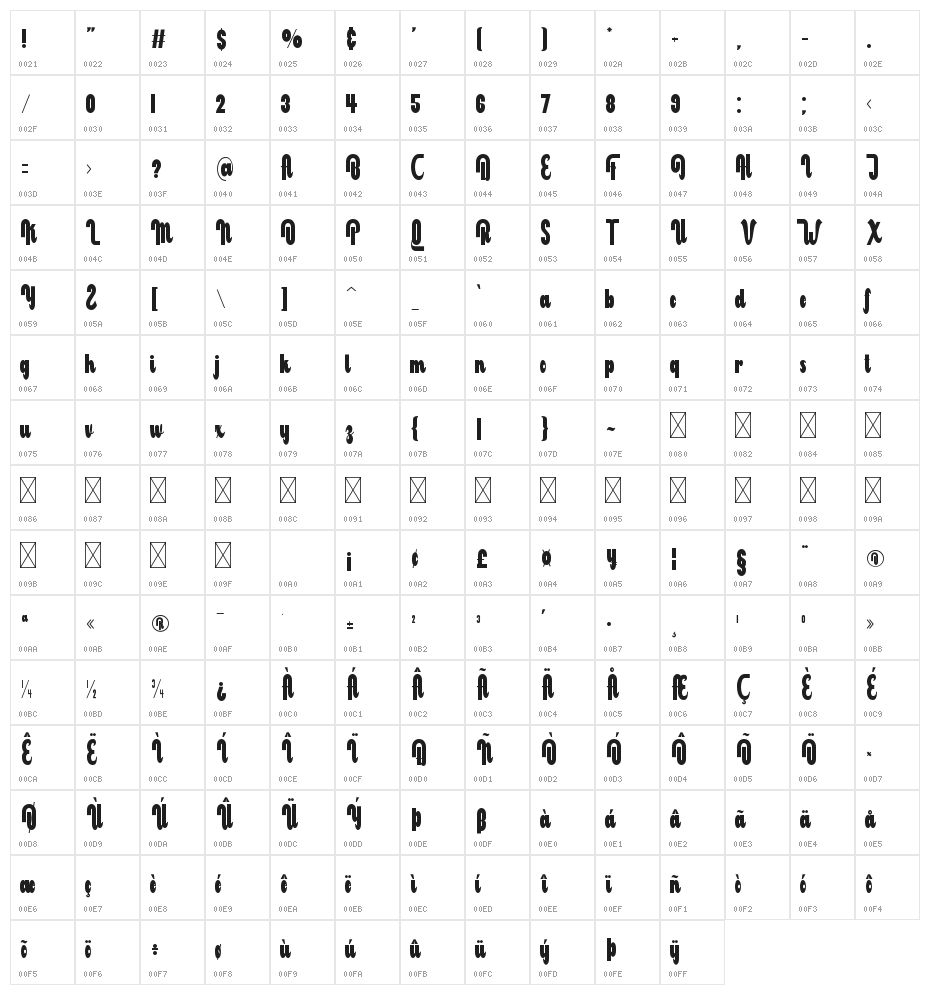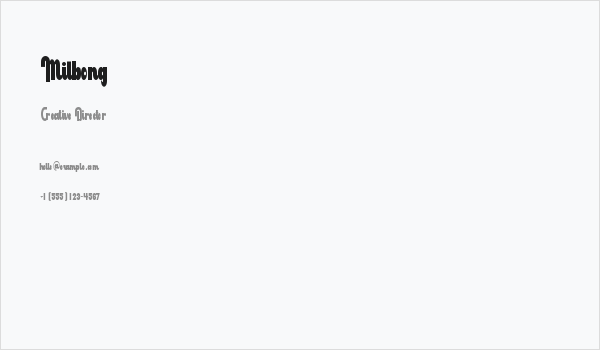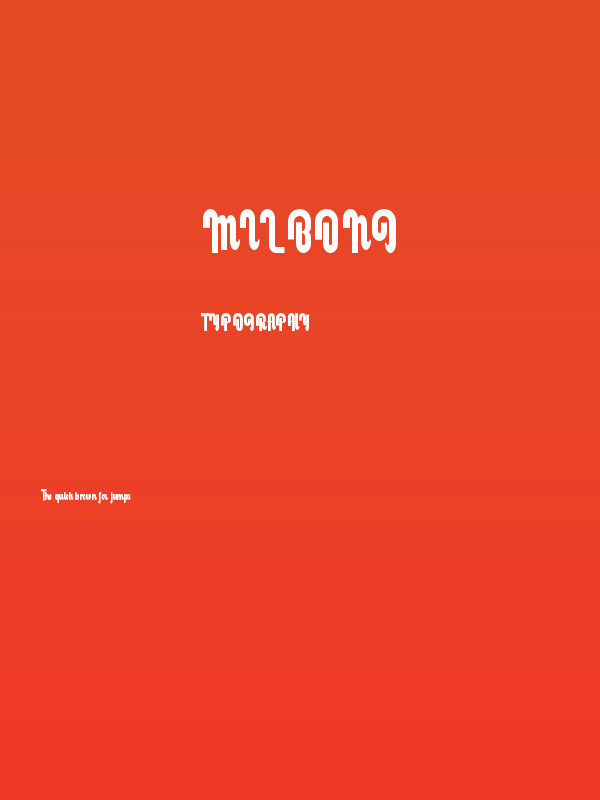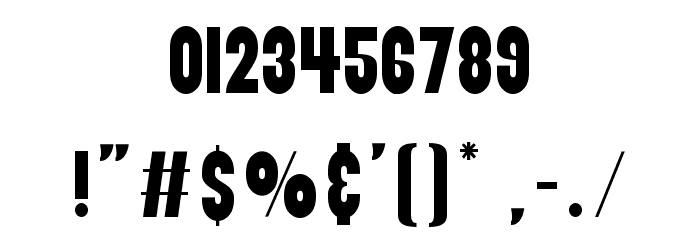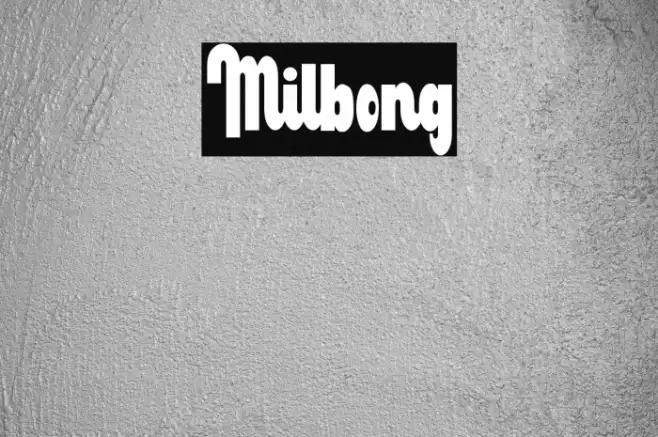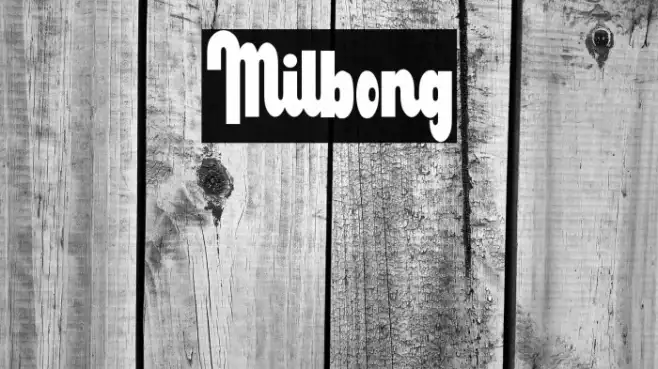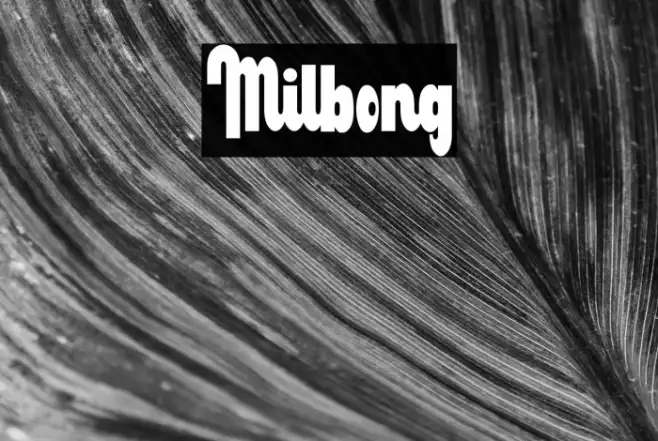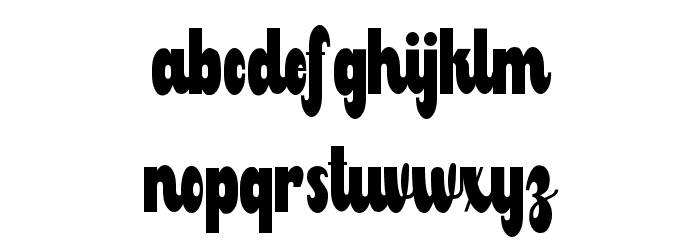
Milbong Font
Milbong Description
This font features a bold and playful style with a strong presence. The uppercase letters are characterized by their unique curves and rounded edges, giving them a whimsical and friendly appearance. The lowercase letters maintain a consistent style, with smooth transitions and a slightly condensed form. The numbers are bold and easily readable, while the special characters complement the overall design with their distinctive shapes. This font is perfect for projects that require a fun and engaging look, such as children's books, posters, and branding materials.
| Proposed Projects | Ideal for children's books, playful posters, and branding materials. |